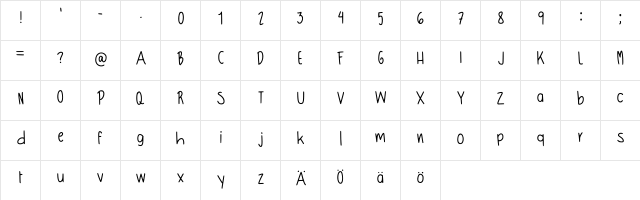
ASSS ASSS
Design Context for ASSS Typeface
ASSS is a composed and adaptable typeface that performs quietly and consistently across a wide range of design contexts.